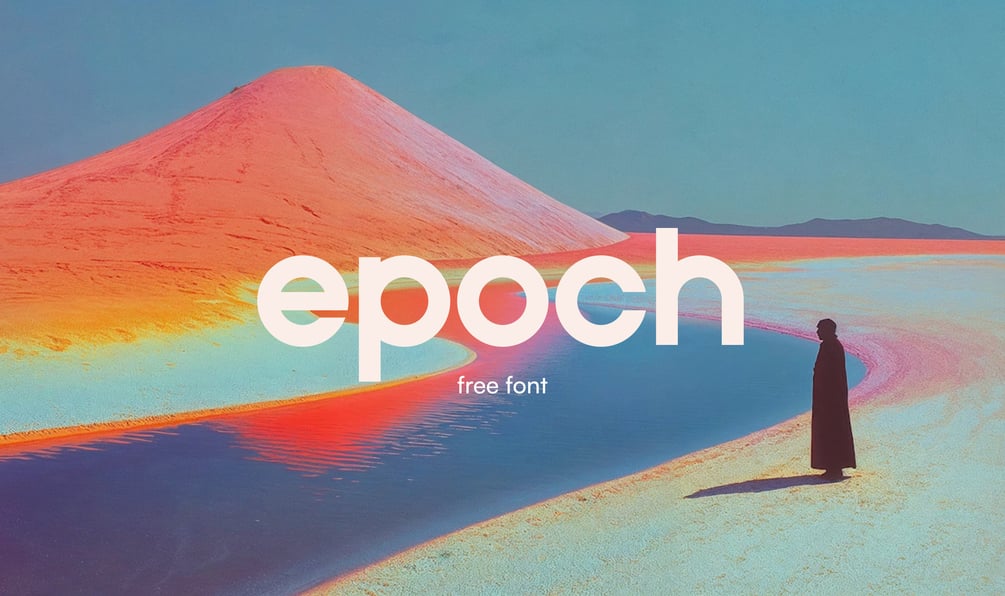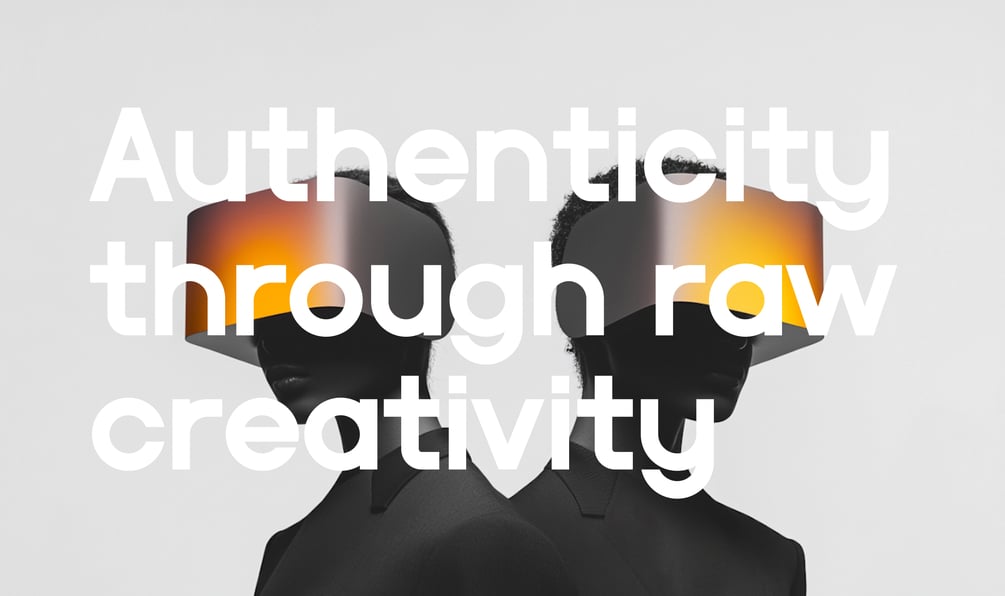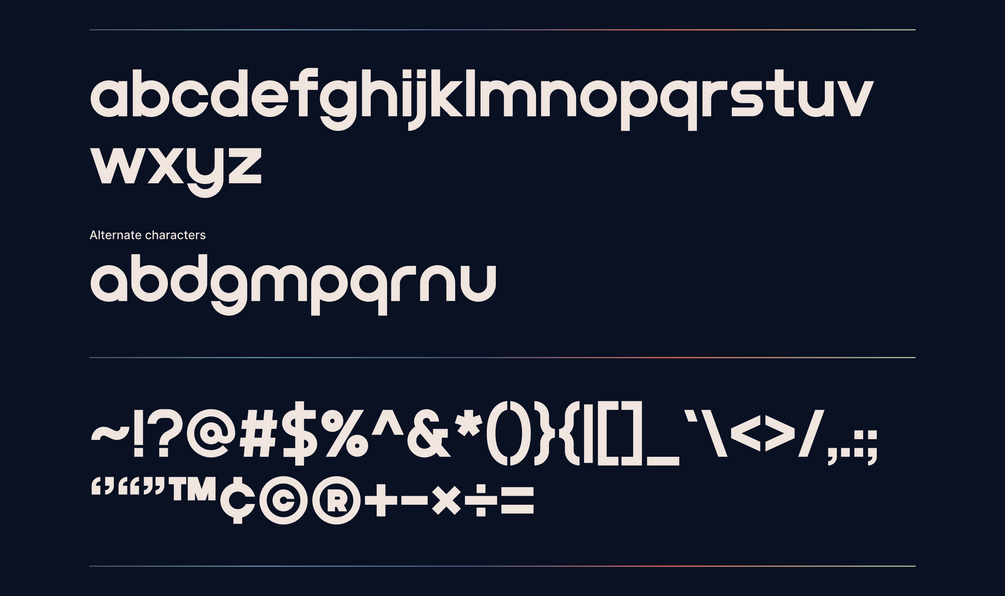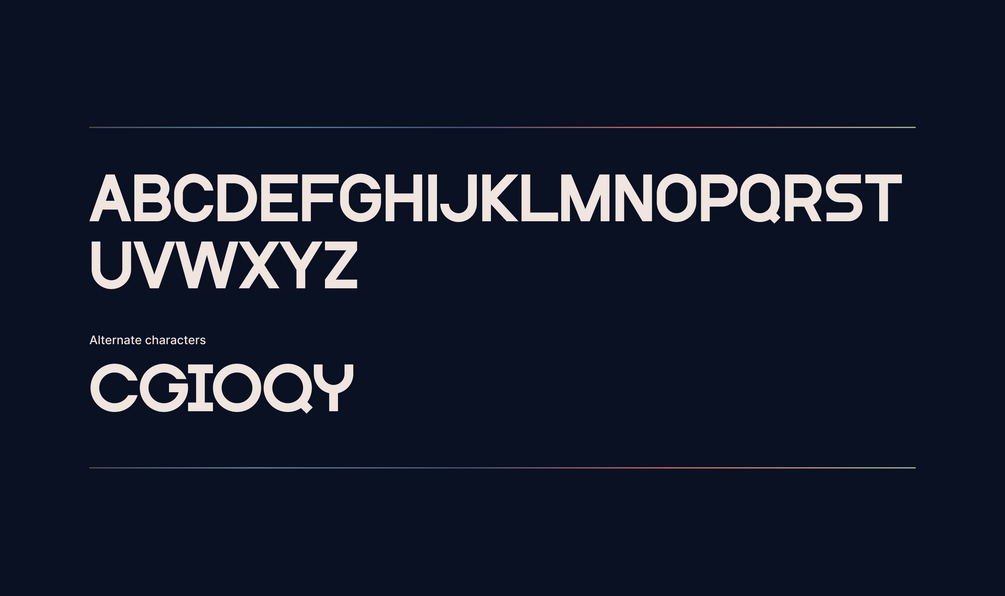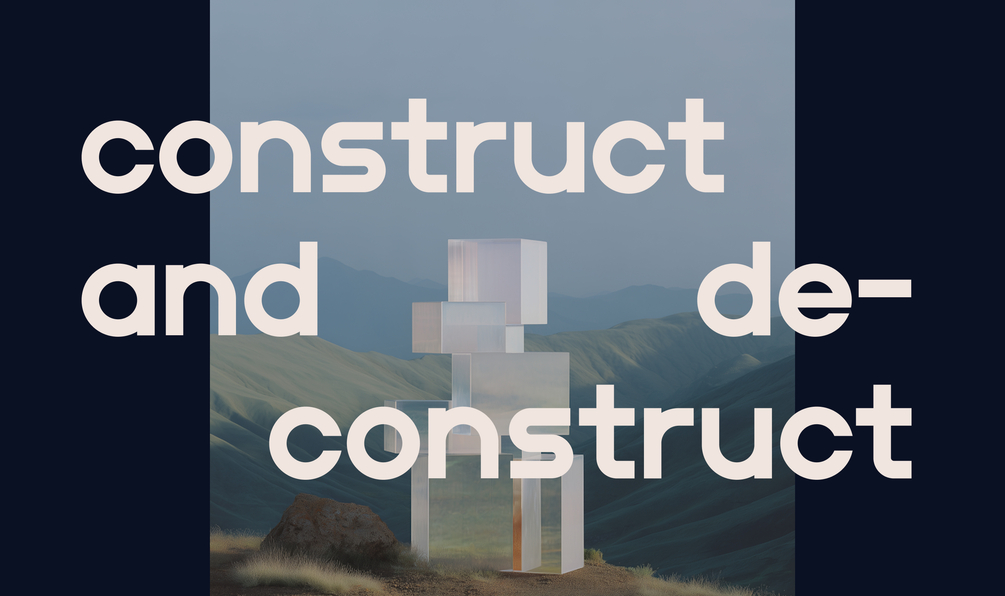
Epoch - free font download
I always liked the form of a basic geometrical shapes and I was thinking if I can explore a typeface design where it’s made out of basic lines and shapes. The Epoch font design was started with the idea of using the circular “o” shape. With it, I proceed to create a few more characters that have the similar “o” shapes like a, b, c, d and so on. To complete the basic latin character set, I took references from popular sans serif fonts like Inter and Satoshi for many of the letter designs, plus inspirations from the popular Bauhaus font. This font is intended to be a display font with tight kernings. With the bold straight and circular lines, I hope it gives a visually impactful yet timeless look.
Epoch font comes with basic latin characters including uppercases, lowercases, numbers and selected punctuations. Epoch is free and it’s suitable for display and as wordmark. You can download it for free for personal and commercial use.
Created with Figma, Adobe Illustrator and Fontself.